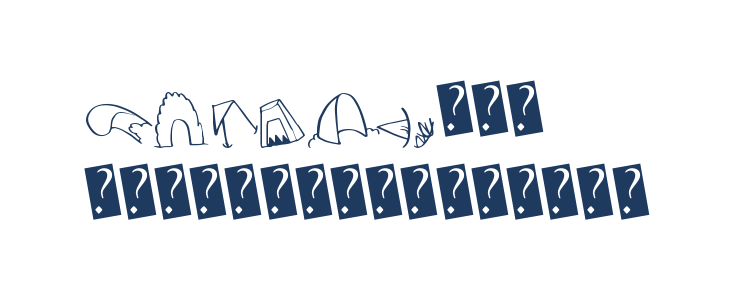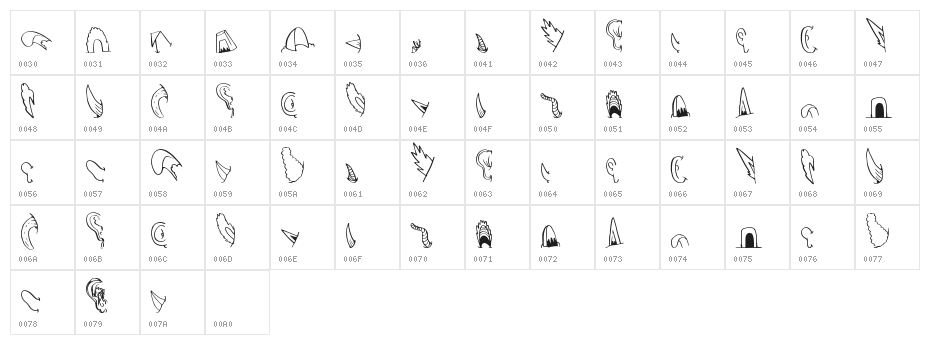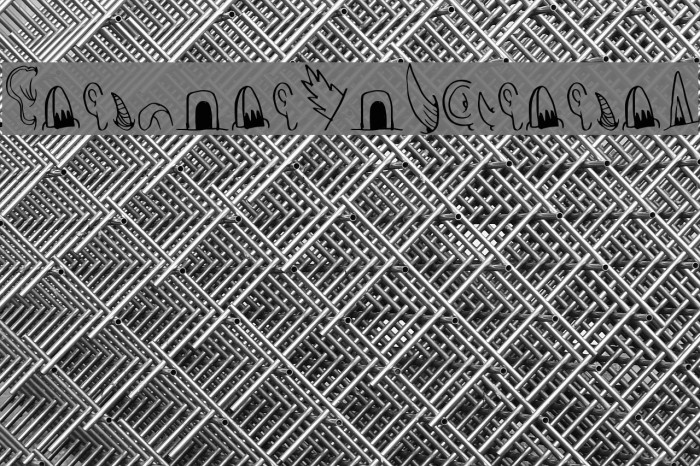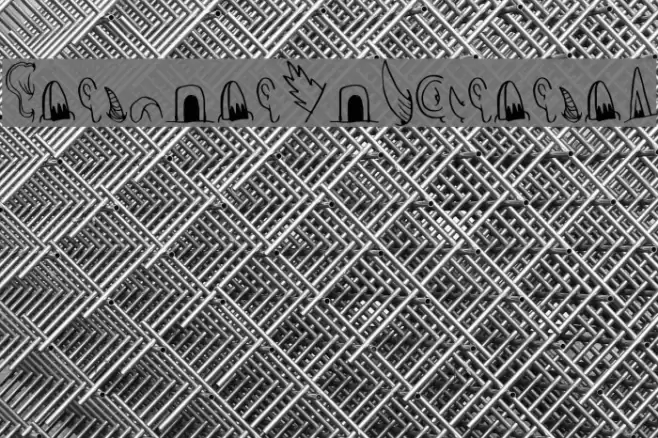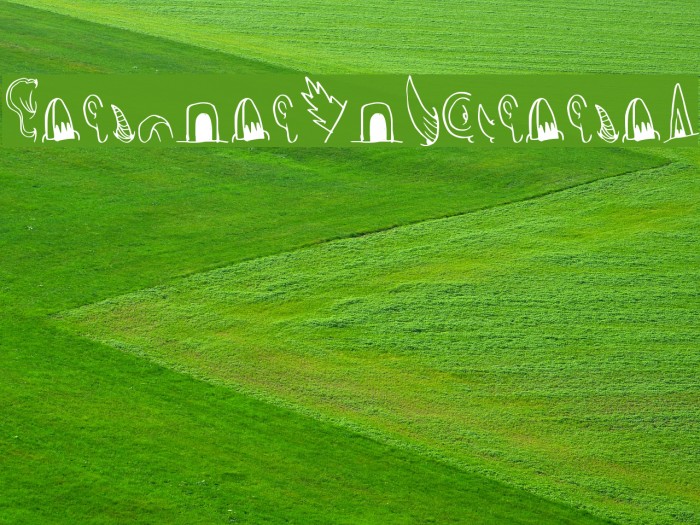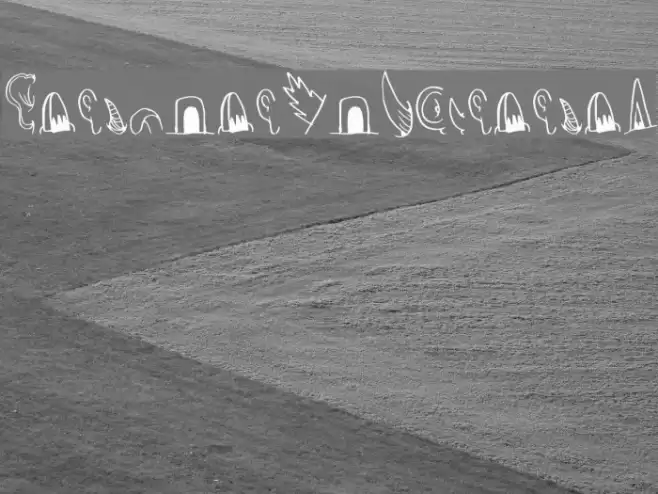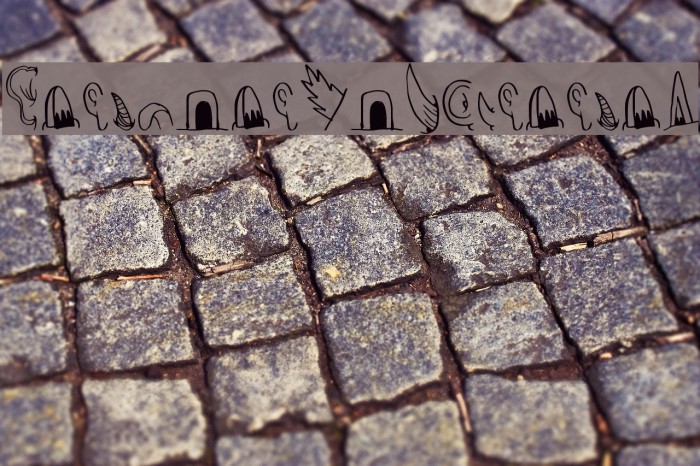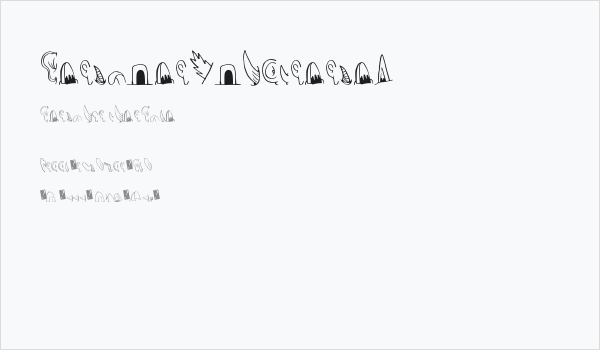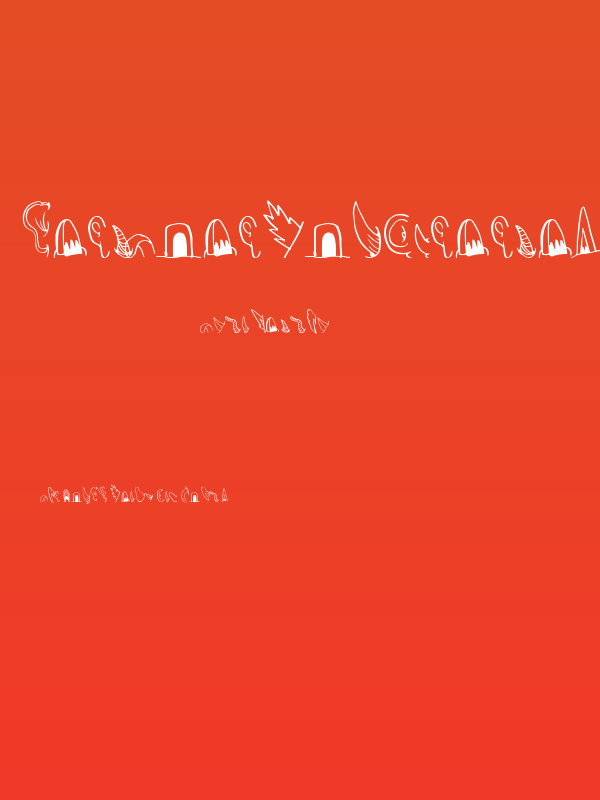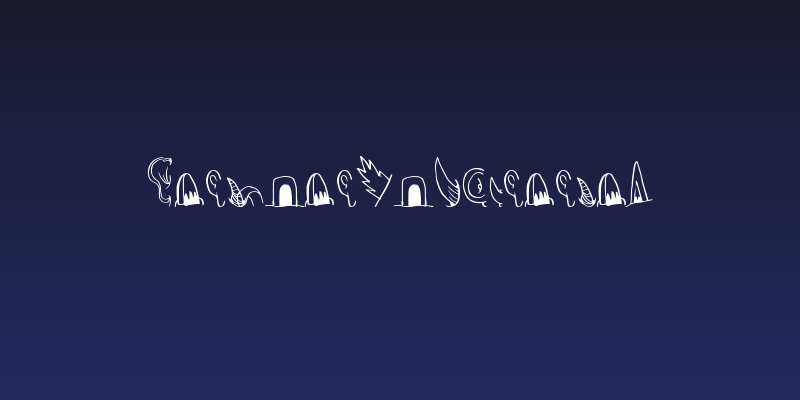
CreatureBuilderEars Font
CreatureBuilderEars Description
This image contains a collection of hand-drawn, whimsical ear and horn illustrations in a variety of fantasy and creature-inspired styles, presented in black line art with playful and exaggerated shapes.
| Overall Style | Decorative, Whimsical, Fantasy |
| Use Case | Illustrations, Game assets, Concept art, Decorative elements |
| Proposed Projects | Character design, tabletop RPGs, fantasy illustrations, children's books, creature concept art. |